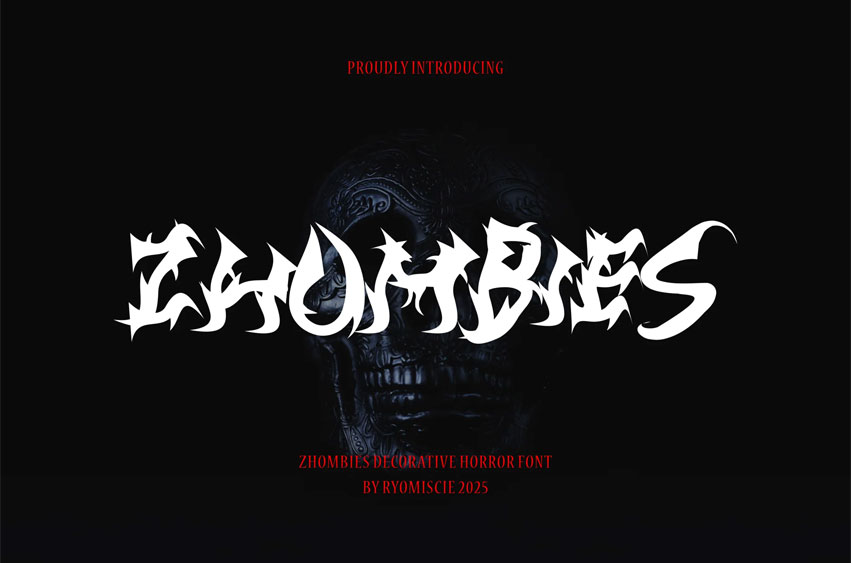
Zhombies Font
Zhombies Font Modern Font is a bold and authentic display font. The font is suitable for any branding project like logo, t-shirt printing, esport, and many more.